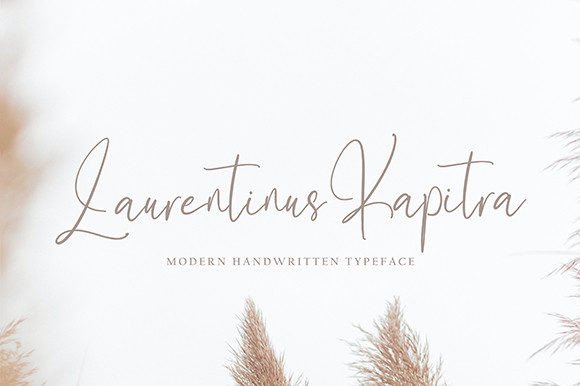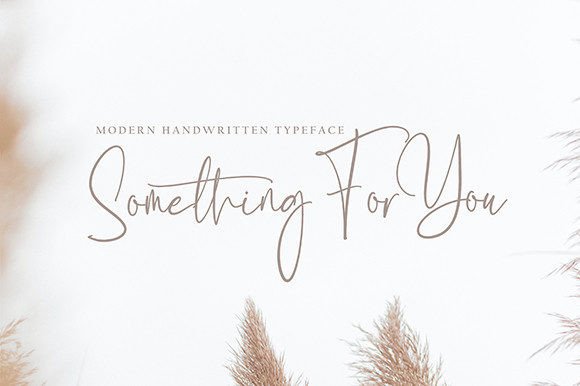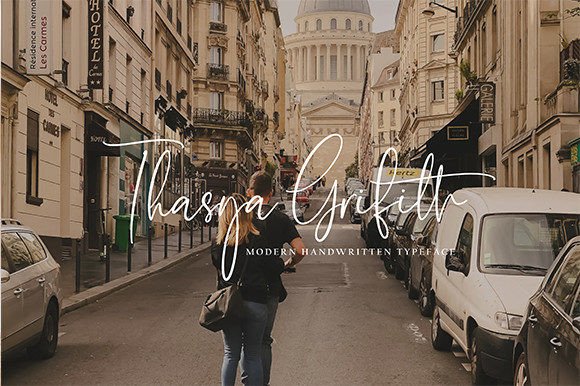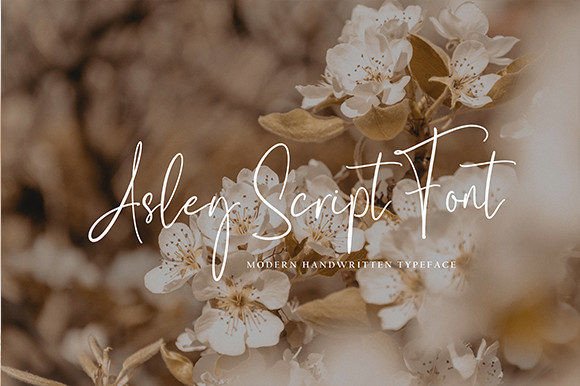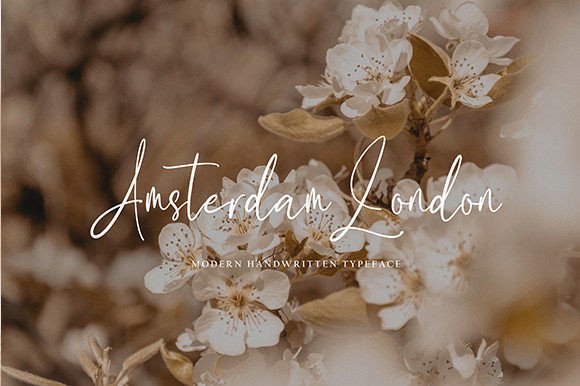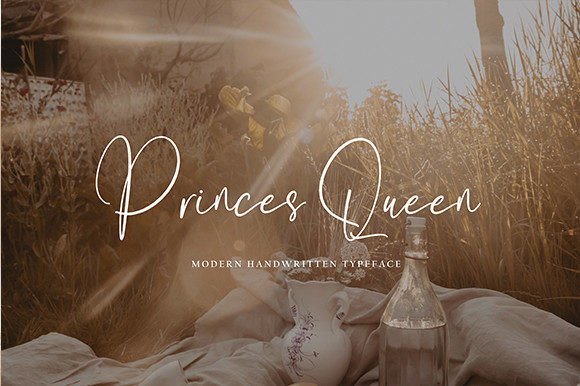
Introduction to Kapethy Ballonde Font
Kapethy Ballonde is a stylish and cursive script font perfect for many different project ex: quotes, logos, blog headers, posters, banding, letter, invitation, stationery, etc.
| 👤 Author | Pineungtype & Missinklab |
Kapethy Ballonde is a stylish and cursive script font perfect for many different project ex: quotes, logos, blog headers, posters, banding, letter, invitation, stationery, etc.
Key Features of Kapethy Ballonde Font
Why Choose Kapethy Ballonde Font?
Kapethy Ballonde Font offers exceptional quality and versatility, making it a valuable addition to your design toolkit. Whether you’re creating for personal projects or commercial use, Kapethy Ballonde Font delivers professional results.